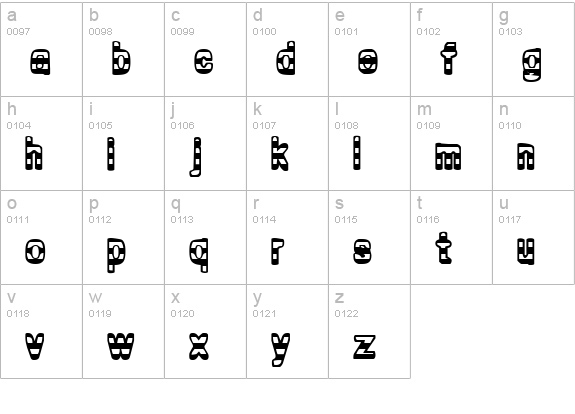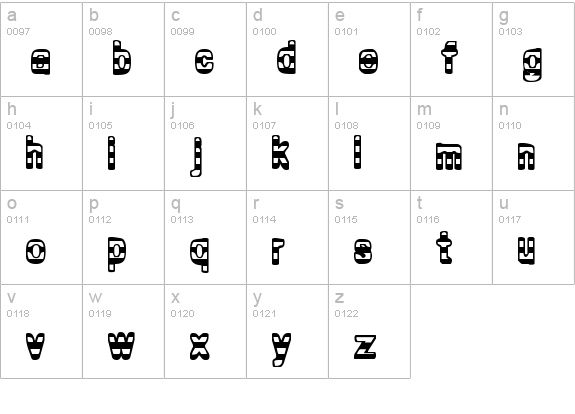
Zebra Parade Font Details
Introducing Zebra Parade font, a whimsical and playful typeface that will bring a touch of fun and excitement to your designs. This font features unique zebra stripe patterns intertwined with bold and eye-catching letters, making it perfect for projects that require a touch of creativity and originality. Zebra Parade font is not only visually striking but also versatile, suitable for a wide range of design applications including branding, posters, invitations, and more. Its lively and energetic aesthetic will surely make your text stand out and leave a lasting impression on your audience. The best part? Zebra Parade font is available for free download at FontsMarket.com, so you can easily incorporate this charming typeface into your projects without breaking the bank. Don't miss out on the opportunity to add a playful twist to your designs with Zebra Parade font!